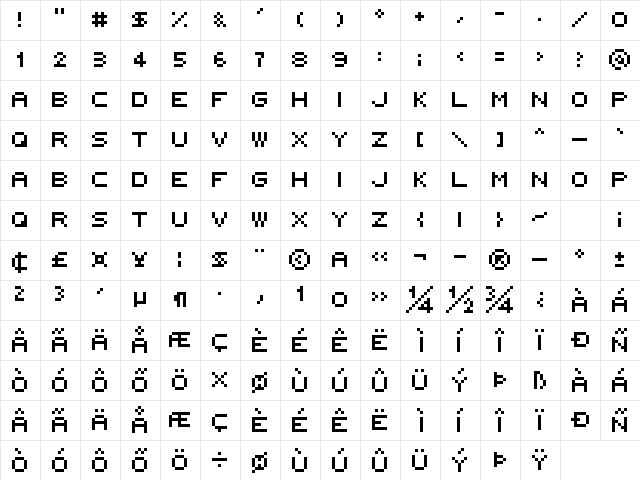
5x5 rounded Regular
Design Context for 5x5 rounded Typeface
5x5 rounded uses gentle rounded endings to create a warm, inviting typographic personality — less corporate than geometric sans, more refined than playful display fonts.
A natural fit for tech startups, health and wellness brands, children's products, and friendly consumer apps.
Font Pairing: Pairs well with a rounded or humanist sans for body copy, maintaining the friendly tone without relying on 5x5 rounded to carry extended reading.
Pro Tip: Pair 5x5 rounded with a geometric sans for a balanced system — the rounded softness works as a warm counterpoint to harder-edged companions.